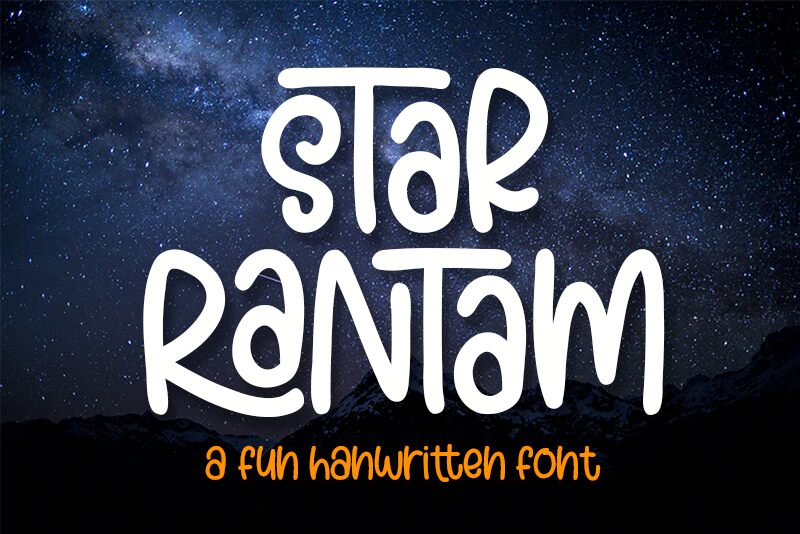
Introducing Star Rantam, a fun and playful display font designed by Beautype. With its unique cartoon-like style and handwritten touch, this light weight font is perfect for creating eye-catching logos, quotes and social media posts.
Star Rantam